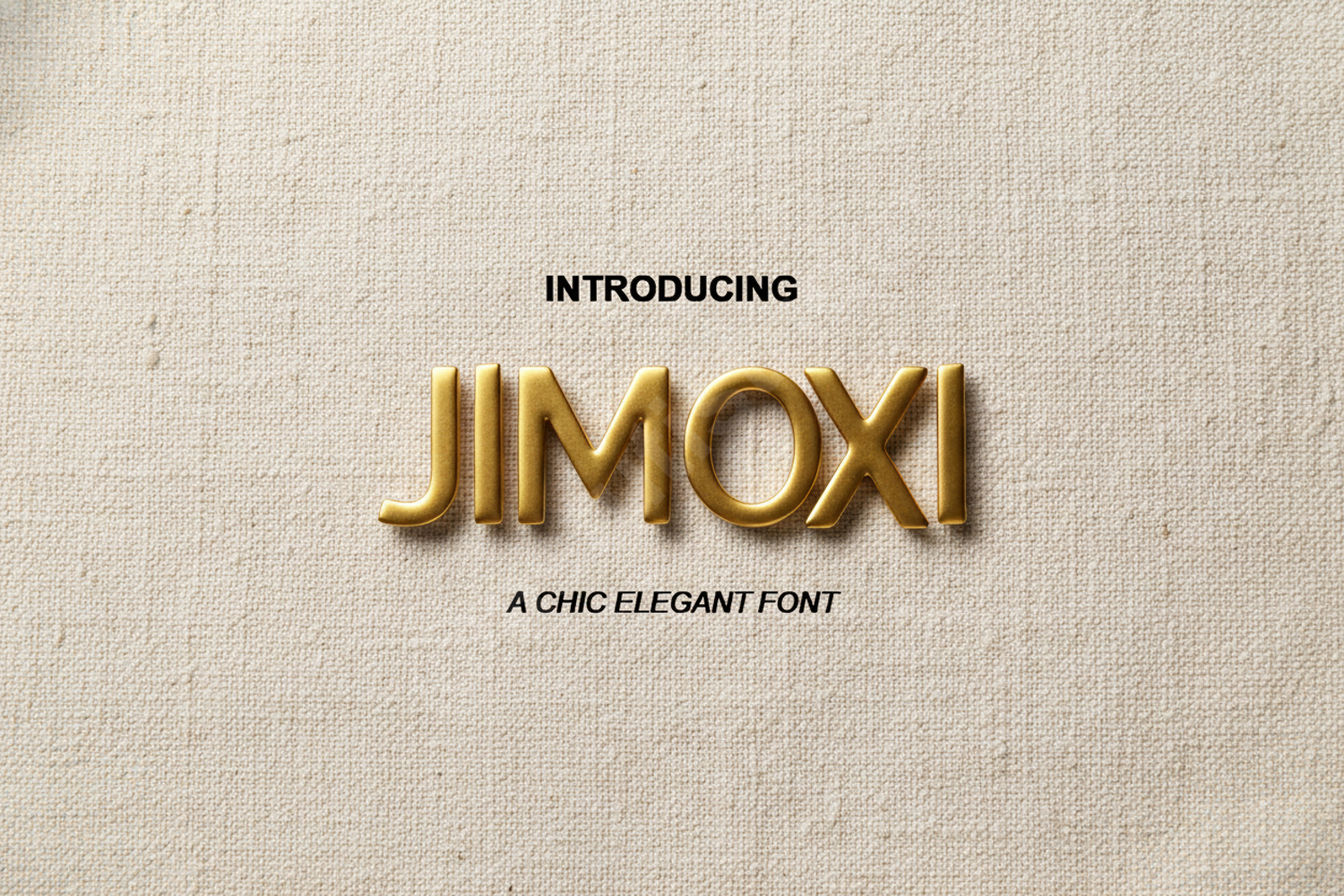
Jimoxi - Elegant Modern Display Serif
Jimoxi
Jimoxi is a premium display serif font designed to bring a touch of class and modern elegance to your creative projects. With its balanced proportions and refined curves, Jimoxi offers a timeless aesthetic that bridges the gap between traditional serif styles and contemporary design. This font is meticulously crafted to ensure high legibility while maintaining a sophisticated flair that captures attention instantly.
- Full set of uppercase and lowercase letters
- Numerals, punctuation, and essential symbols
- Comprehensive multilingual support
- High-end branding and corporate logo design
- Wedding invitations and luxury stationery
- Editorial layouts and fashion magazine headers
- Premium packaging and product labels
- Sophisticated social media graphics and advertising